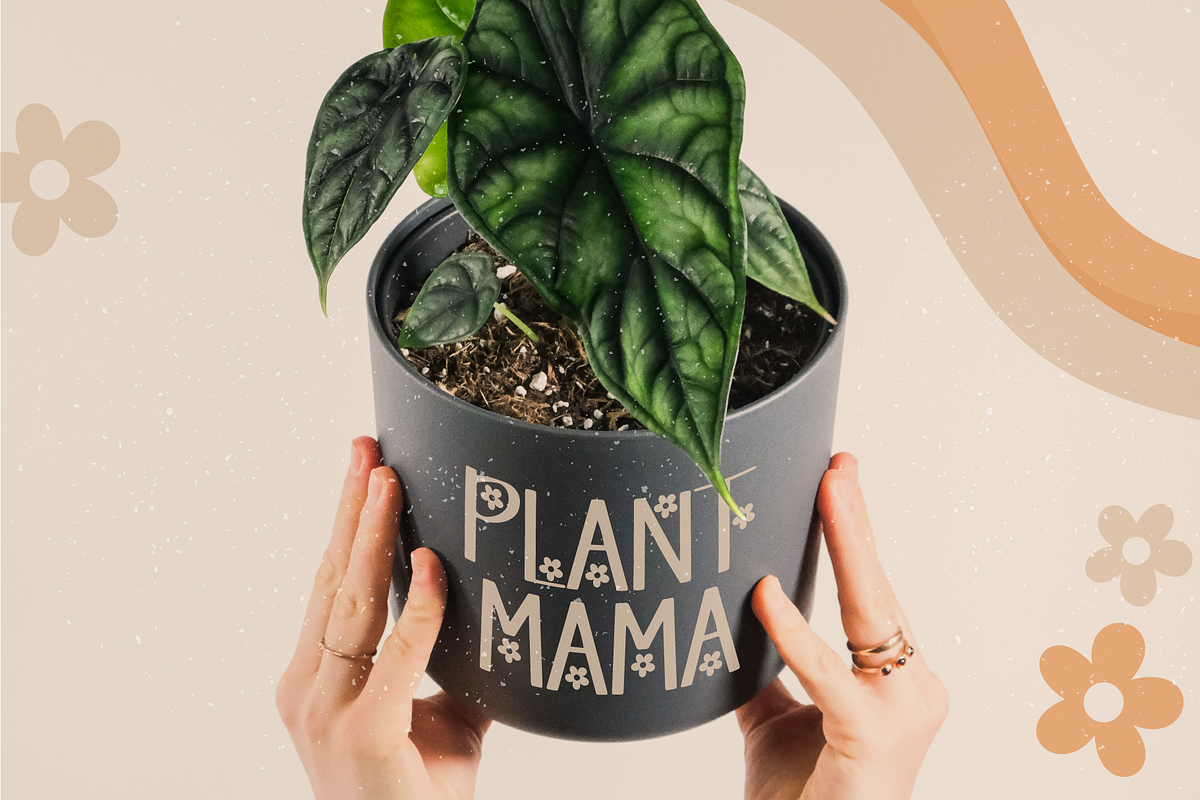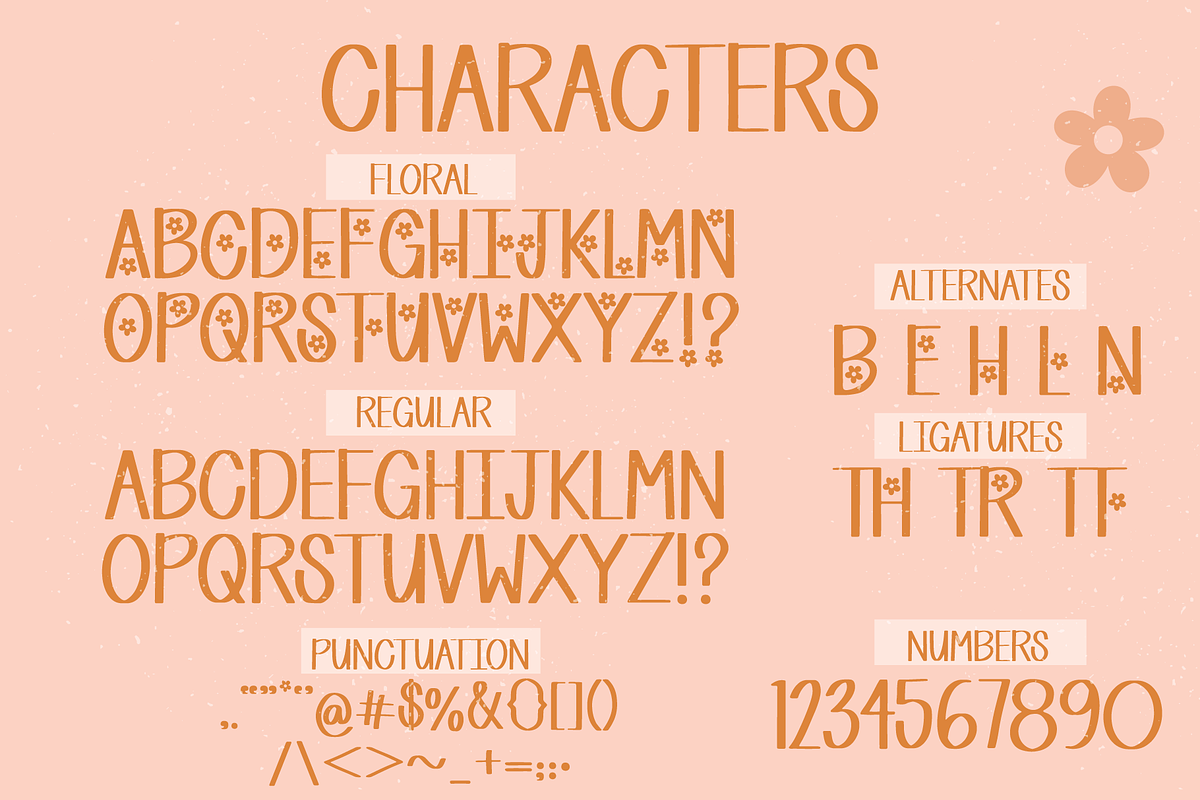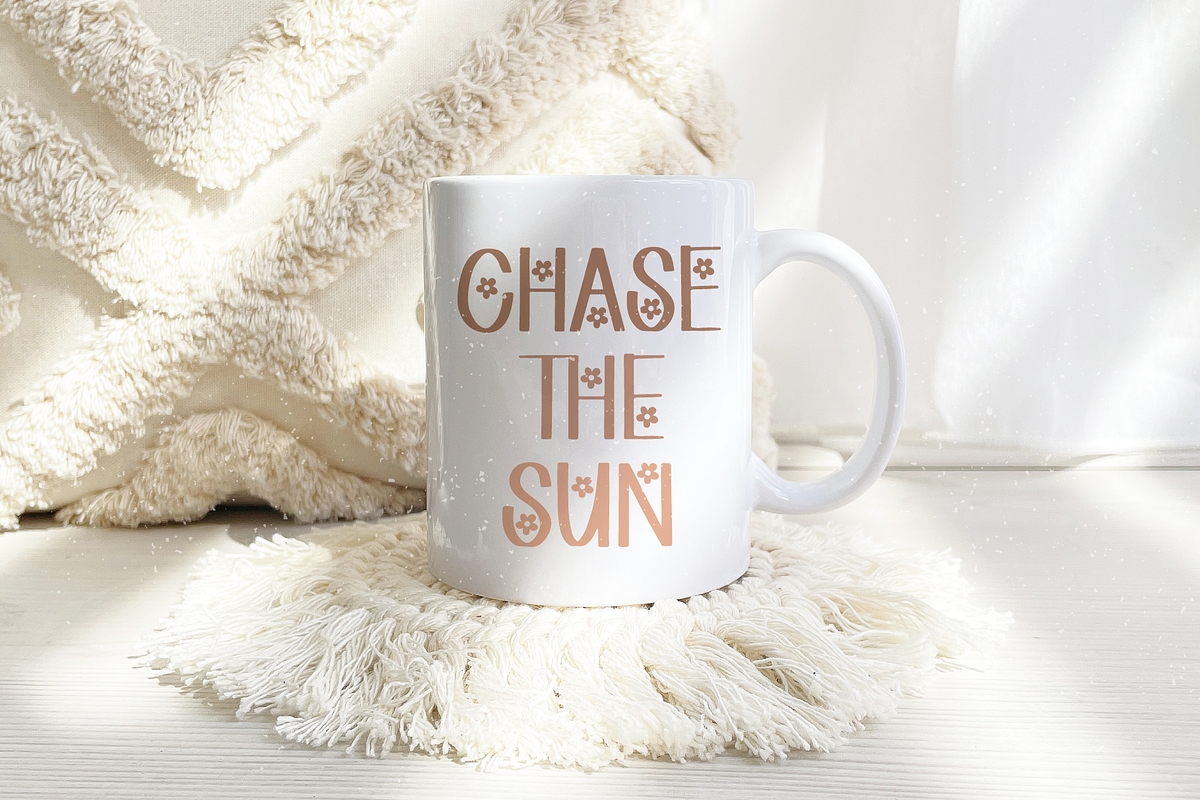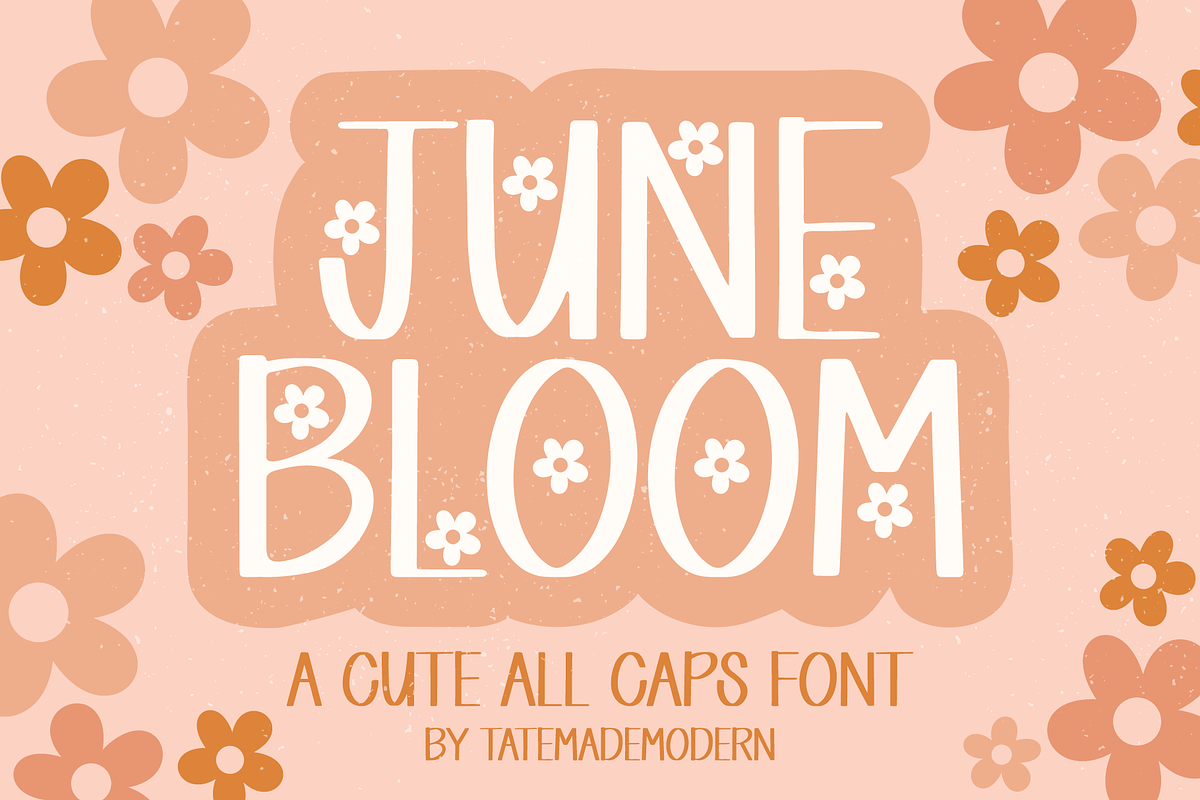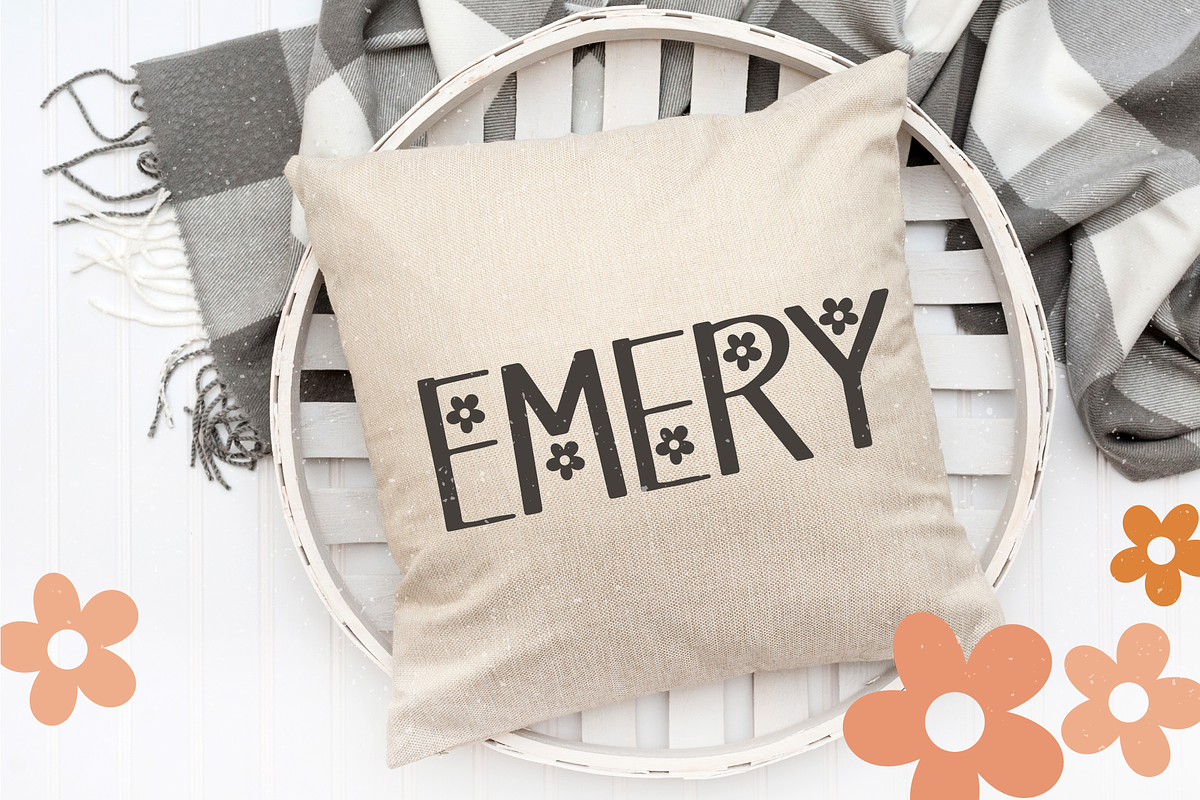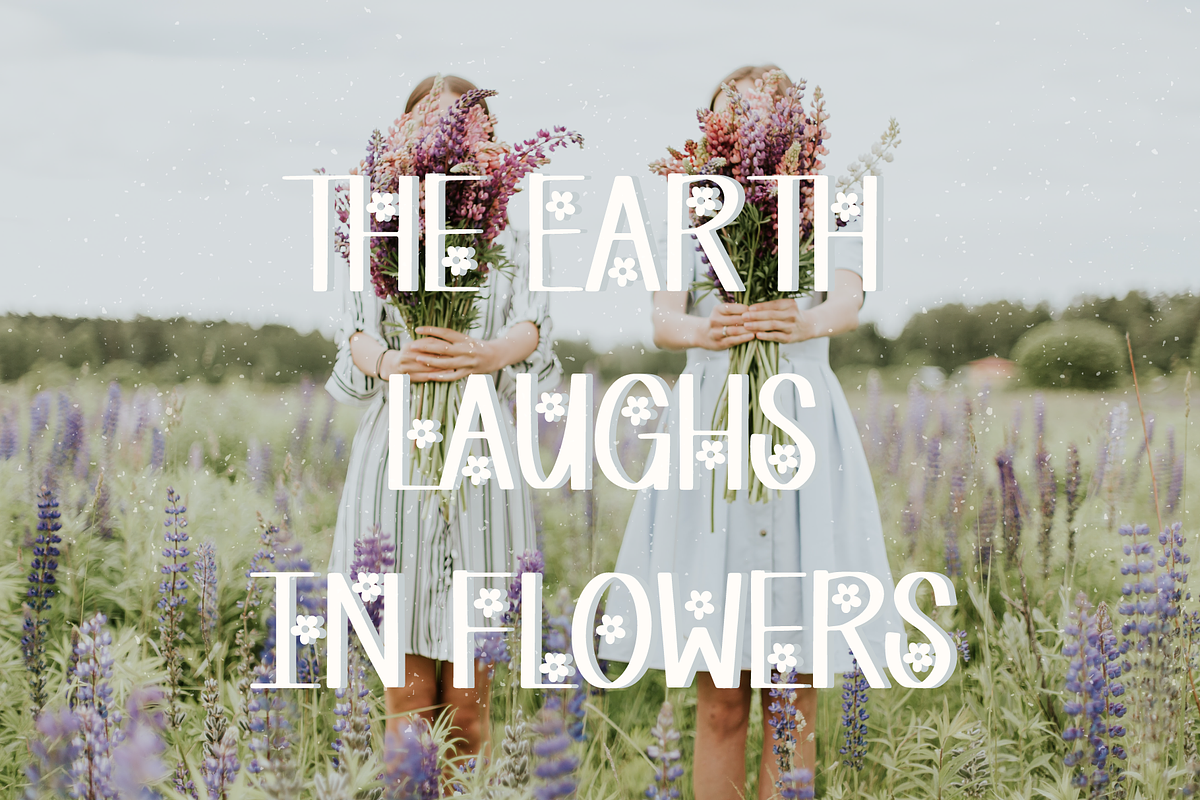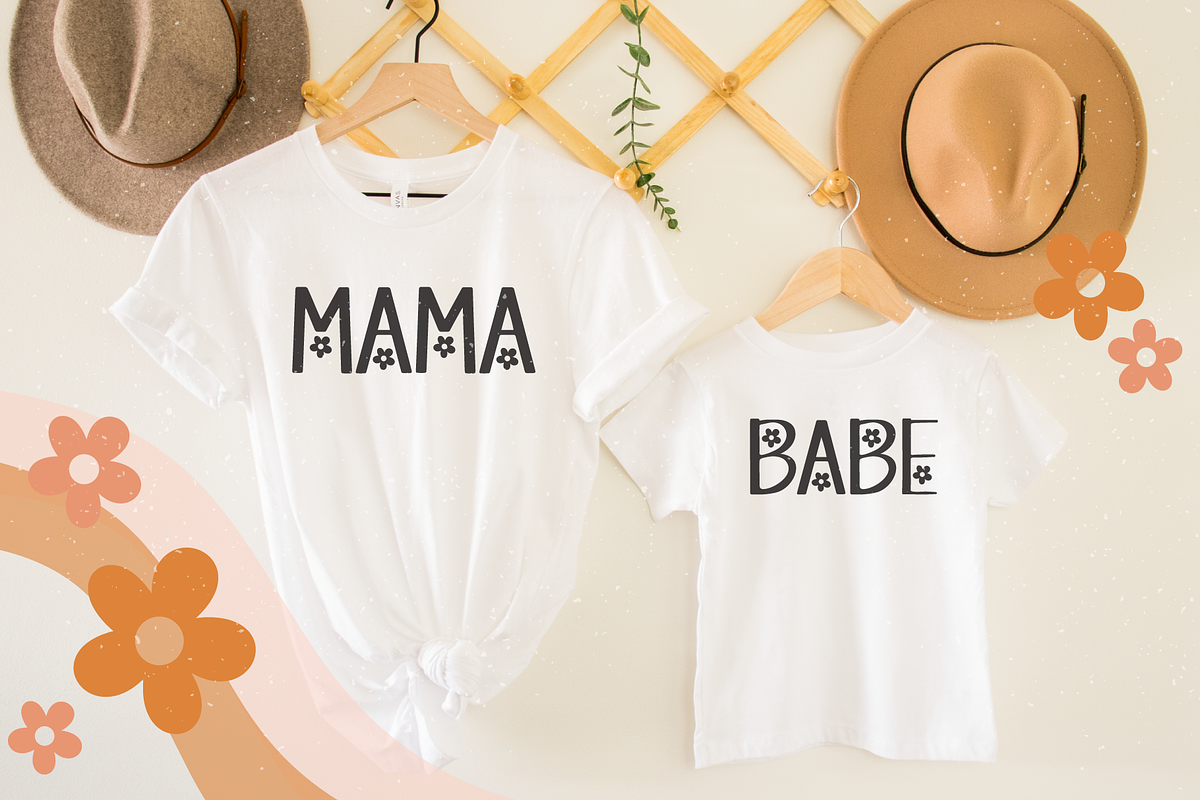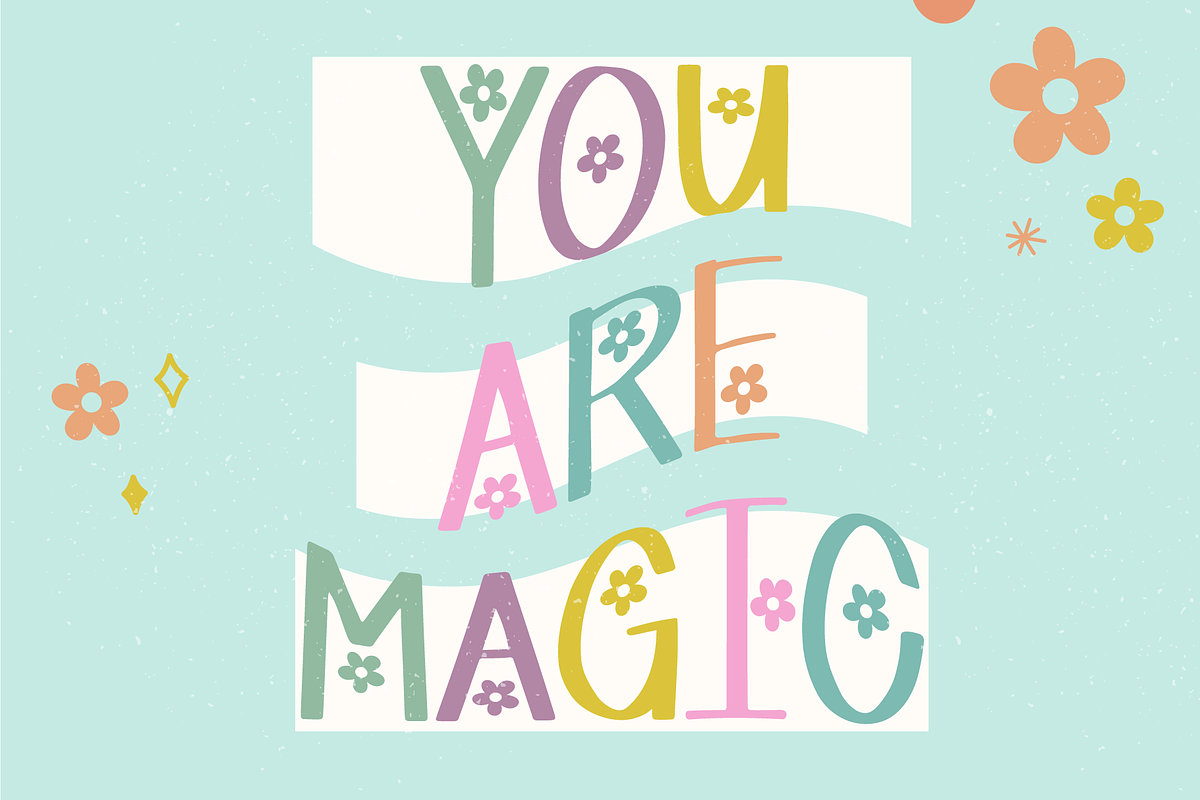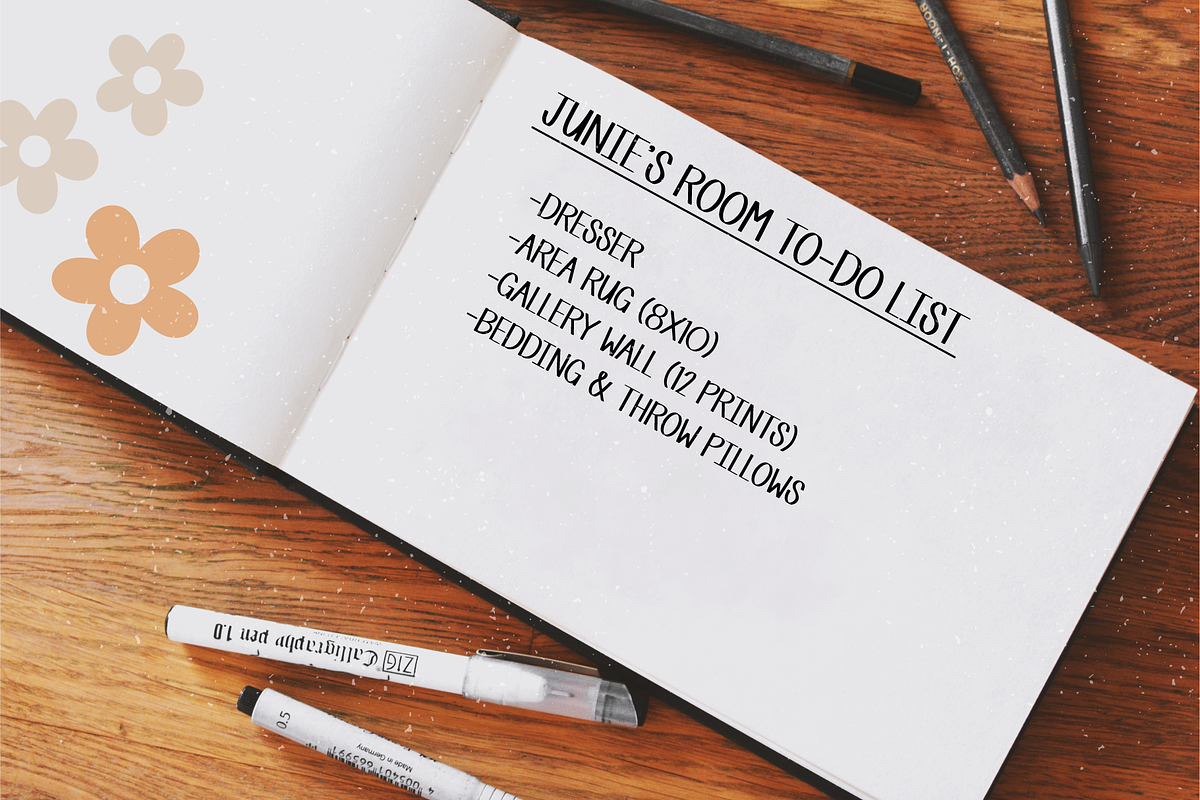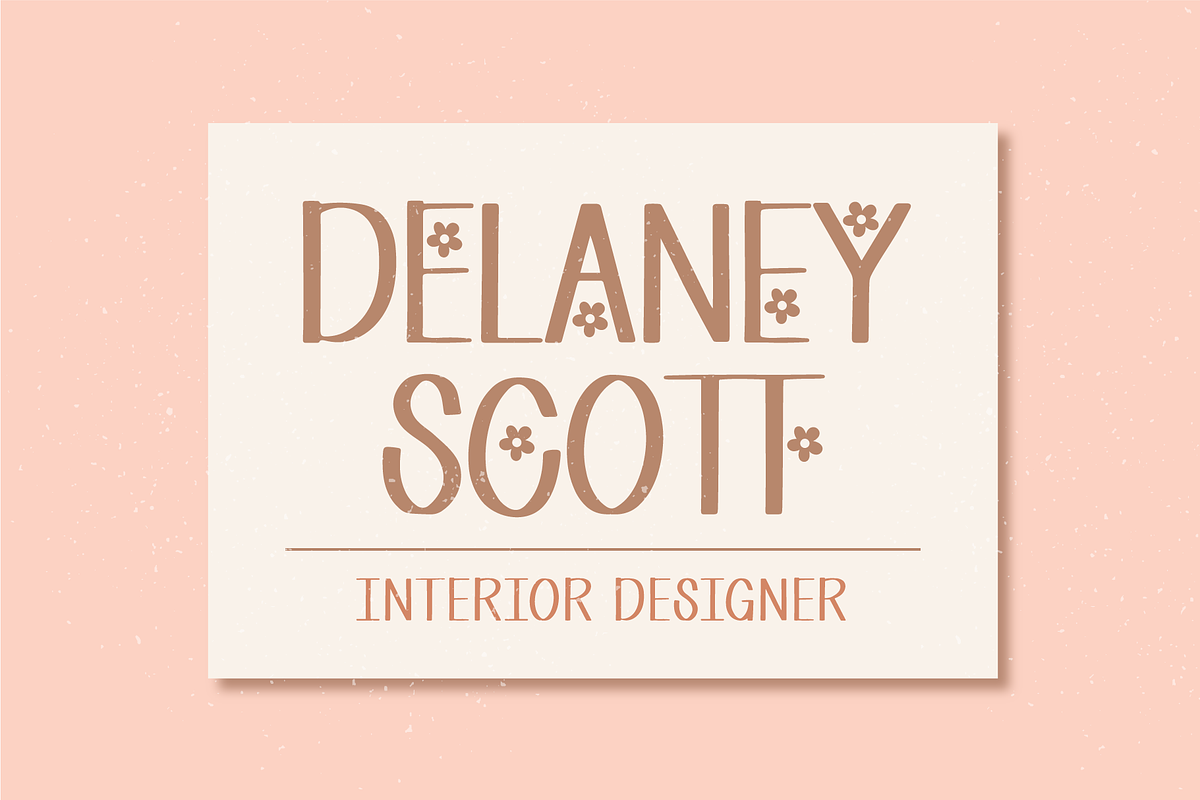
June Bloom | a cute all caps font
Introducing June Bloom, a cute handwritten all caps font with 2 versions included: regular & floral. With feminine flair this font would be great for t-shirt designs, stickers, branding, social media, and more! Based on my own architectural script learned in interior design school with a modern twist, and tiny retro florals in the decorative floral version.